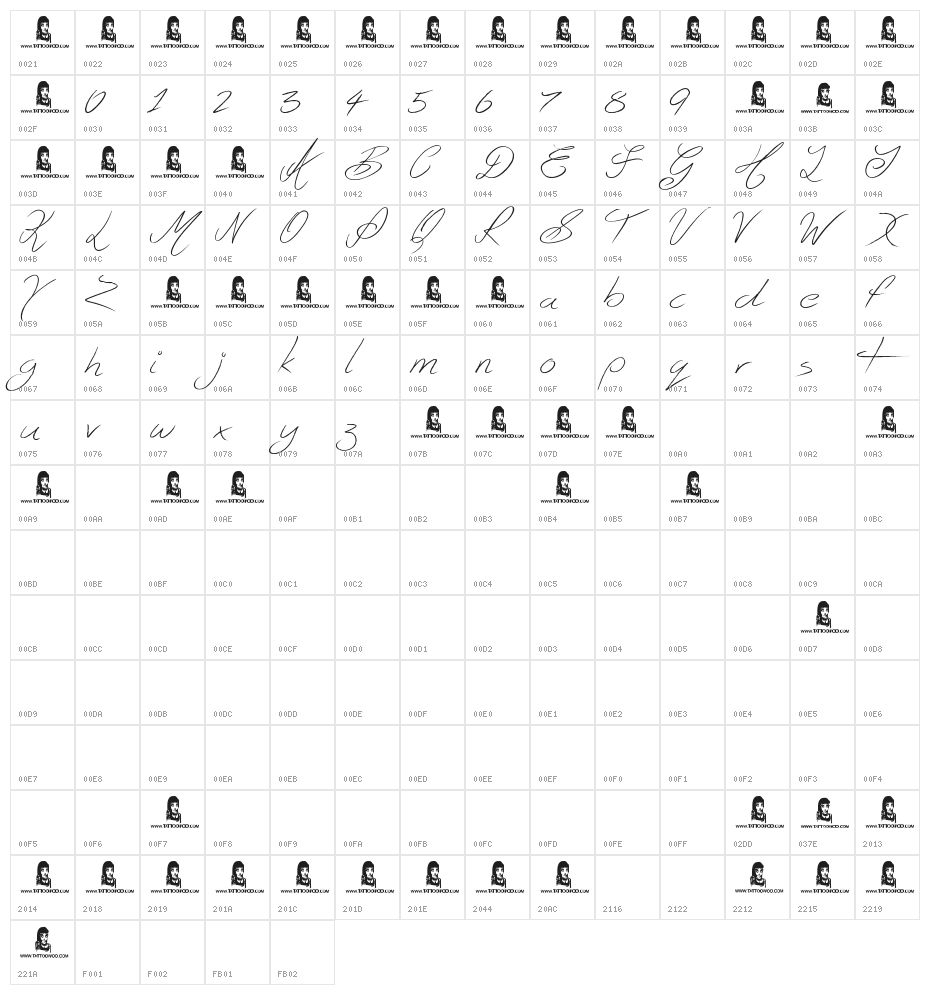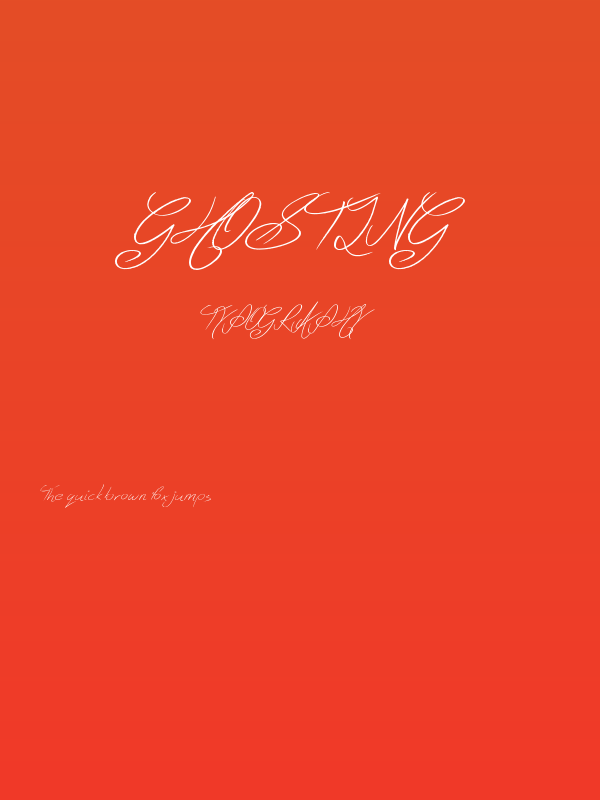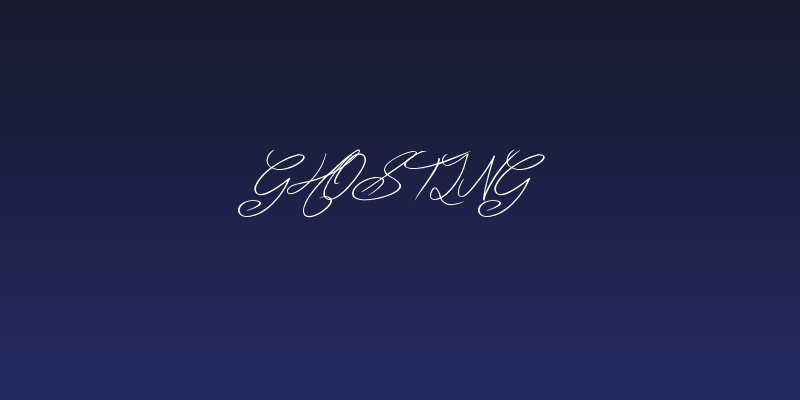
Ghosting Font
Ghosting Description
This font is a beautifully crafted script with an elegant and flowing style. The characters are connected, giving it a handwritten appearance that is both sophisticated and artistic. The uppercase letters are ornate, with sweeping curves and loops that add a touch of flair. The lowercase letters maintain a consistent flow, enhancing readability while retaining the decorative essence. Numbers are styled to match the letters, ensuring a cohesive look across all characters. The font's delicate strokes and graceful lines make it ideal for projects that require a personal and refined touch.
| Overall Style | Elegant, Artistic |
| Use Case | Logos, Invitations, Greeting Cards |
| Proposed Projects | Ideal for wedding invitations, greeting cards, personal branding, and elegant logo designs. |